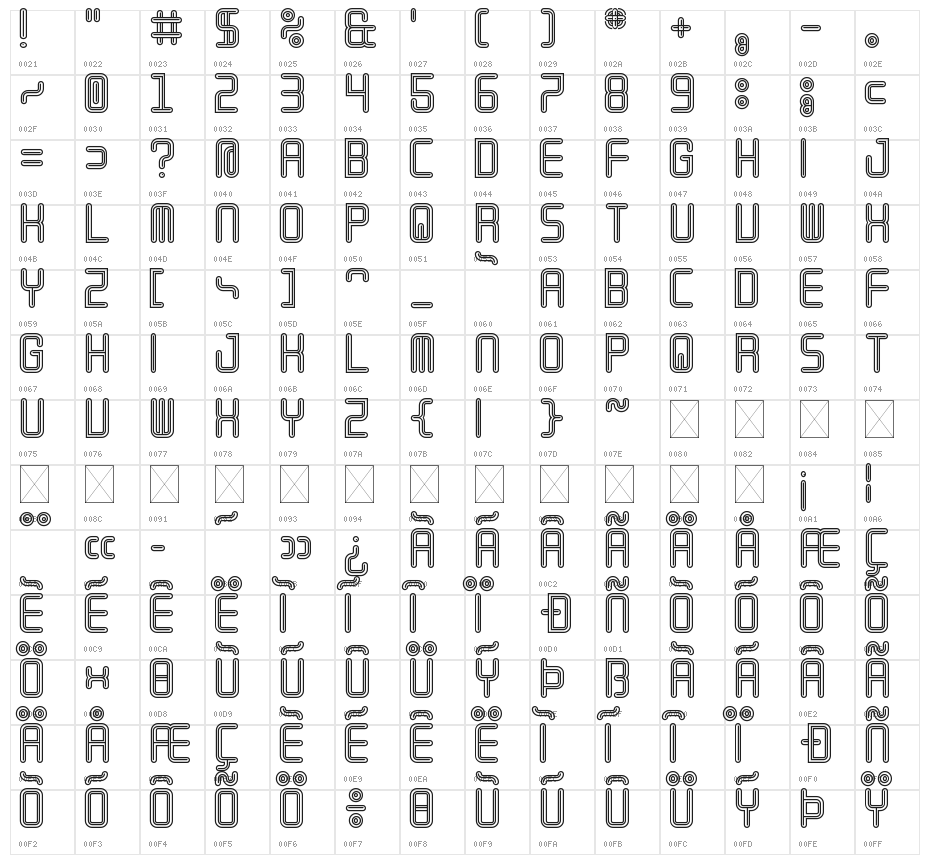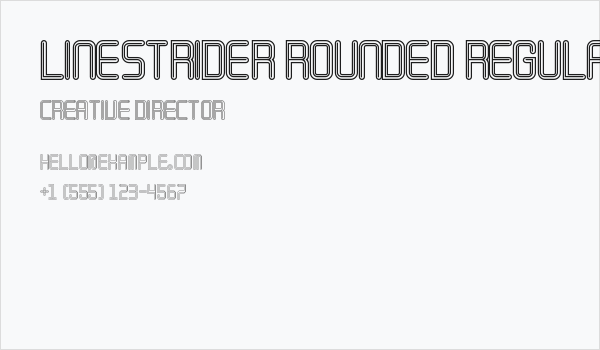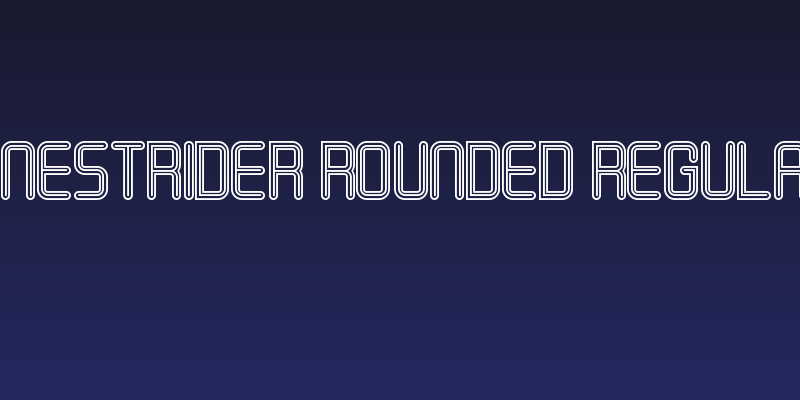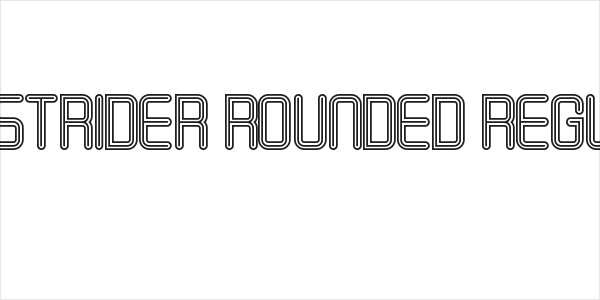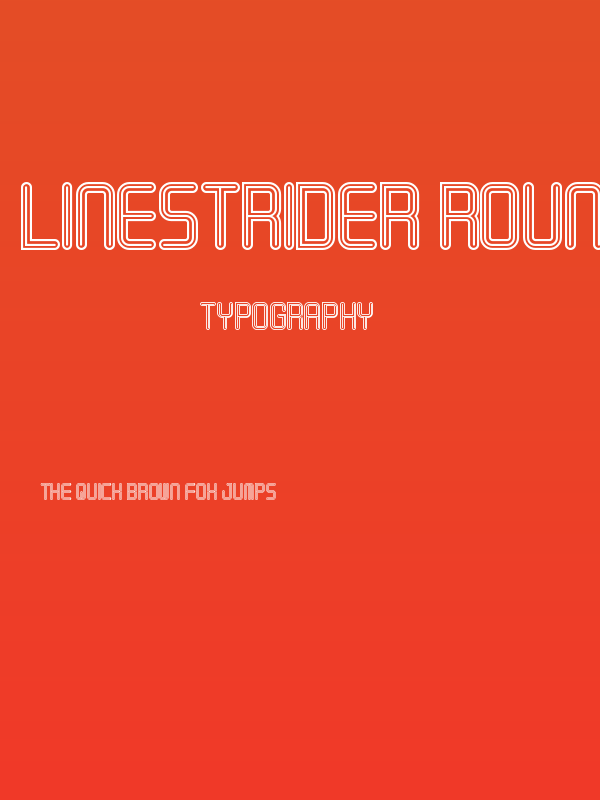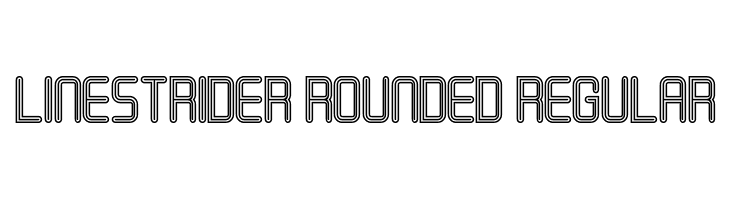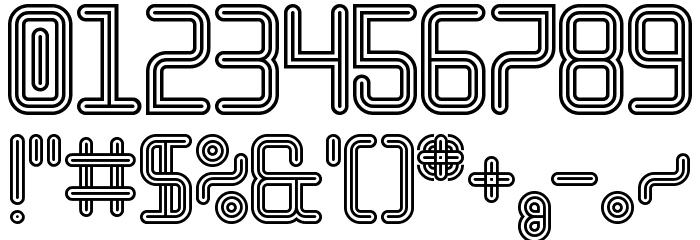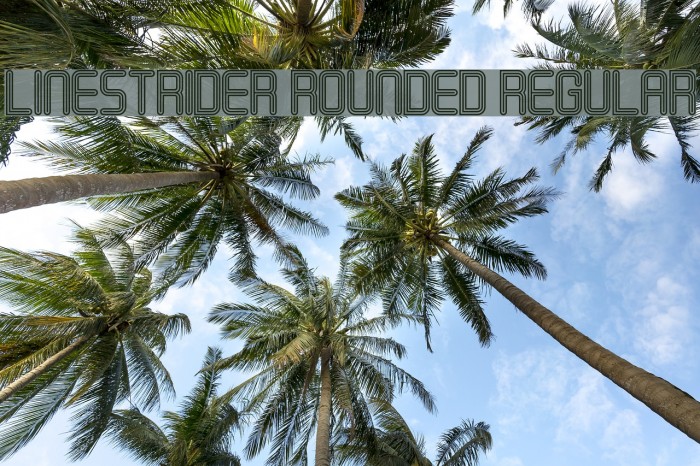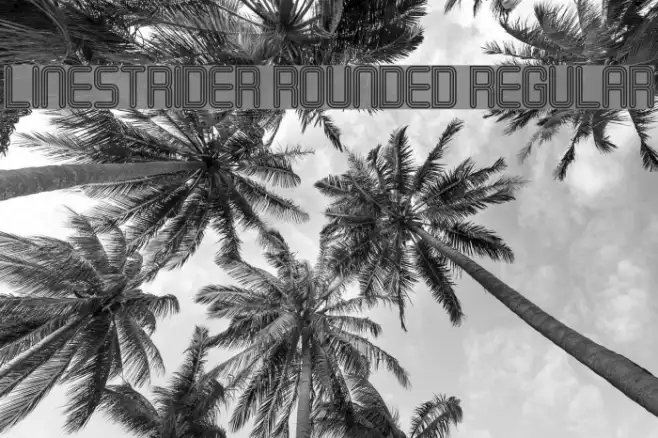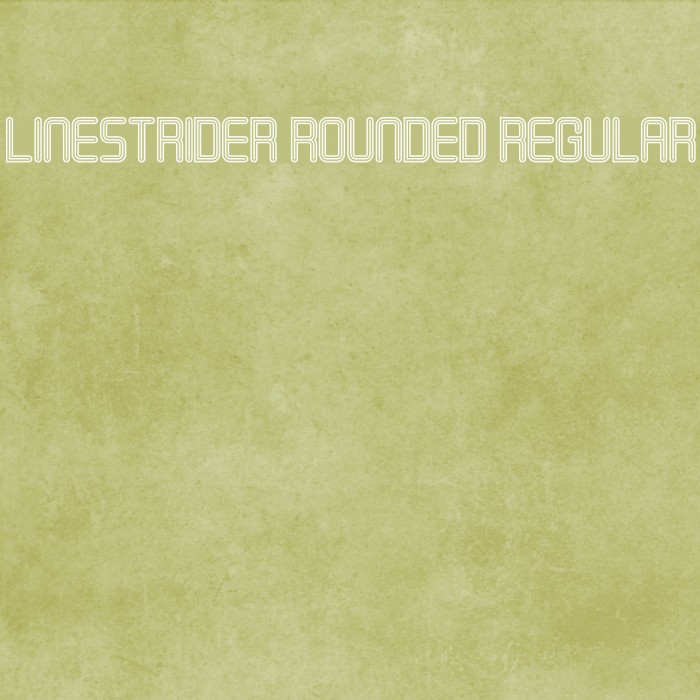
Linestrider Rounded Regular Font
Linestrider Rounded Regular Description
This font features a unique and modern design with rounded edges and a double-line structure, giving it a futuristic and digital appearance. The characters are constructed with a consistent width and rounded corners, creating a harmonious and fluid look. The uppercase and lowercase letters maintain a uniform style, while the numerals and special characters complement the overall design. The font's geometric and symmetrical nature makes it stand out, offering a visually appealing and contemporary aesthetic.
| Proposed Projects | Ideal for tech-related branding, digital media, futuristic posters, and modern graphic design projects. |